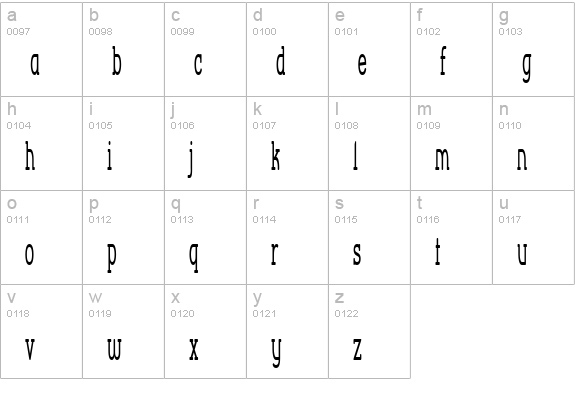
Street Corner Slab Narrower font is a modern and stylish typeface that exudes sophistication and elegance. Its sleek lines and sharp edges make it perfect for a variety of design projects, from branding to editorial design. The font features a unique slab serif style with a narrower width, adding a touch of flair to any text it is applied to. What makes Street Corner Slab Narrower font even more appealing is that it is available for free download at FontsMarket.com. This means you can easily access this high-quality font without any cost, making it a valuable addition to your font library. Whether you are a designer looking to elevate your projects or a business owner seeking a fresh look for your branding, Street Corner Slab Narrower font is sure to make a statement. Download it today and unleash your creativity with this versatile and eye-catching typeface.